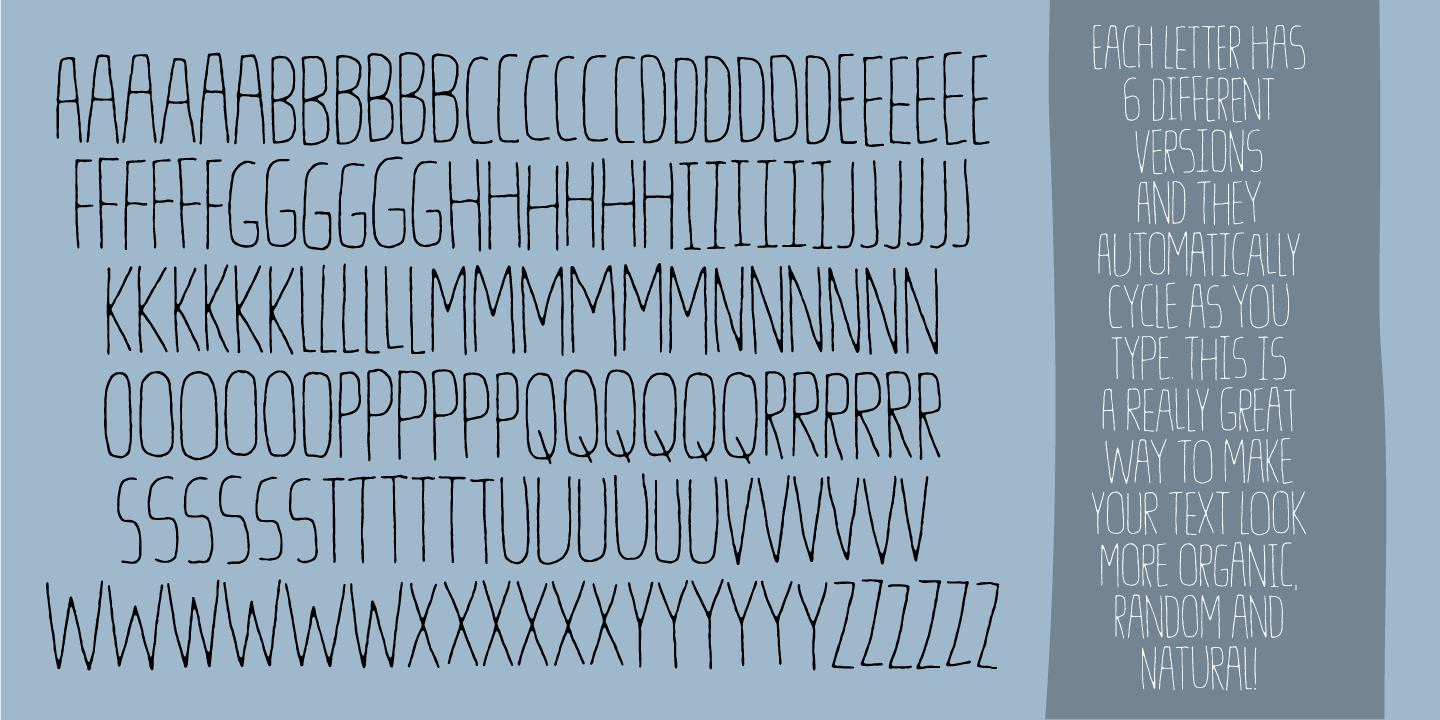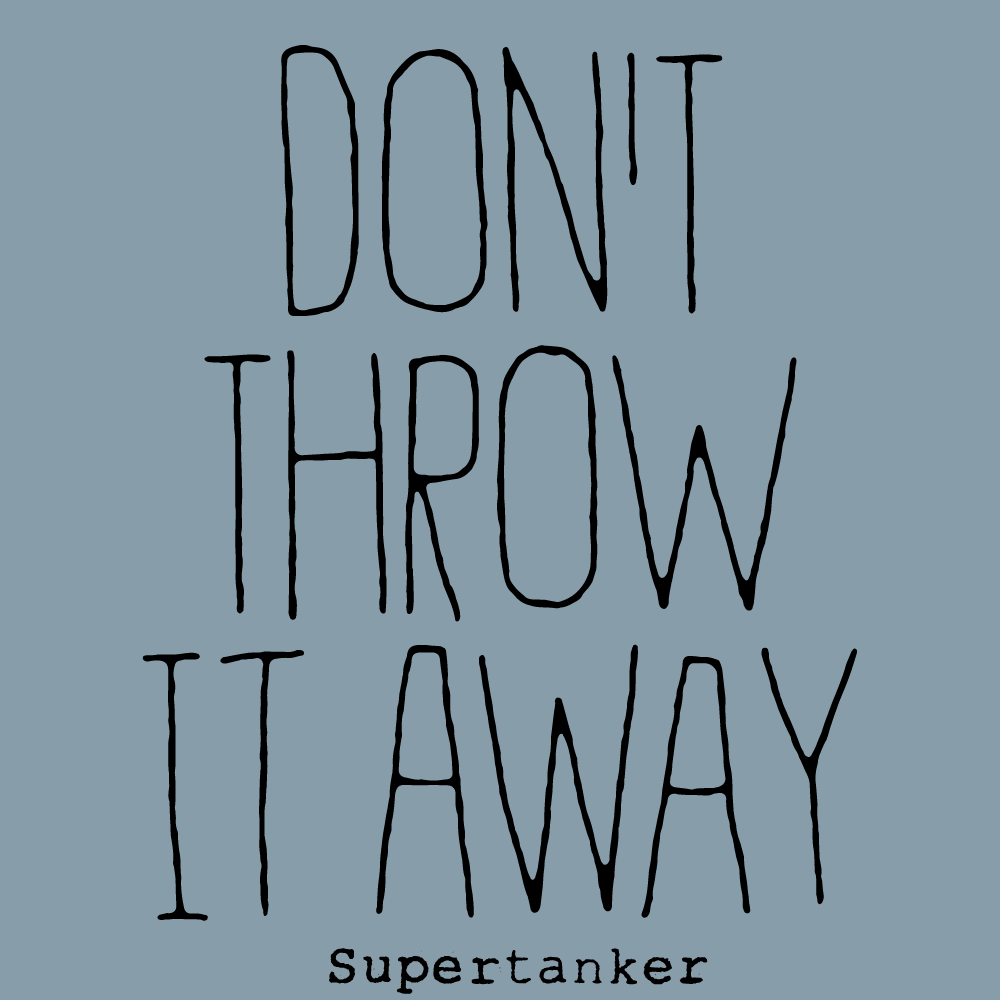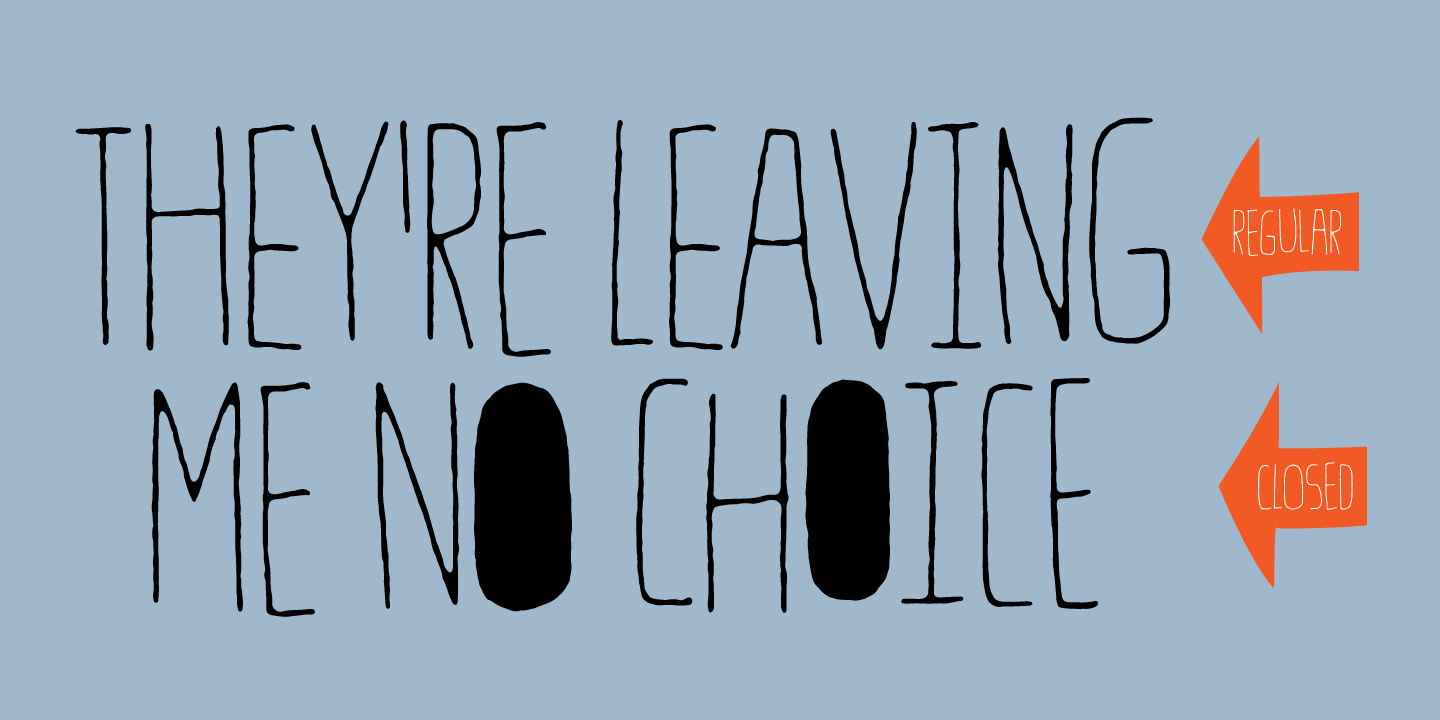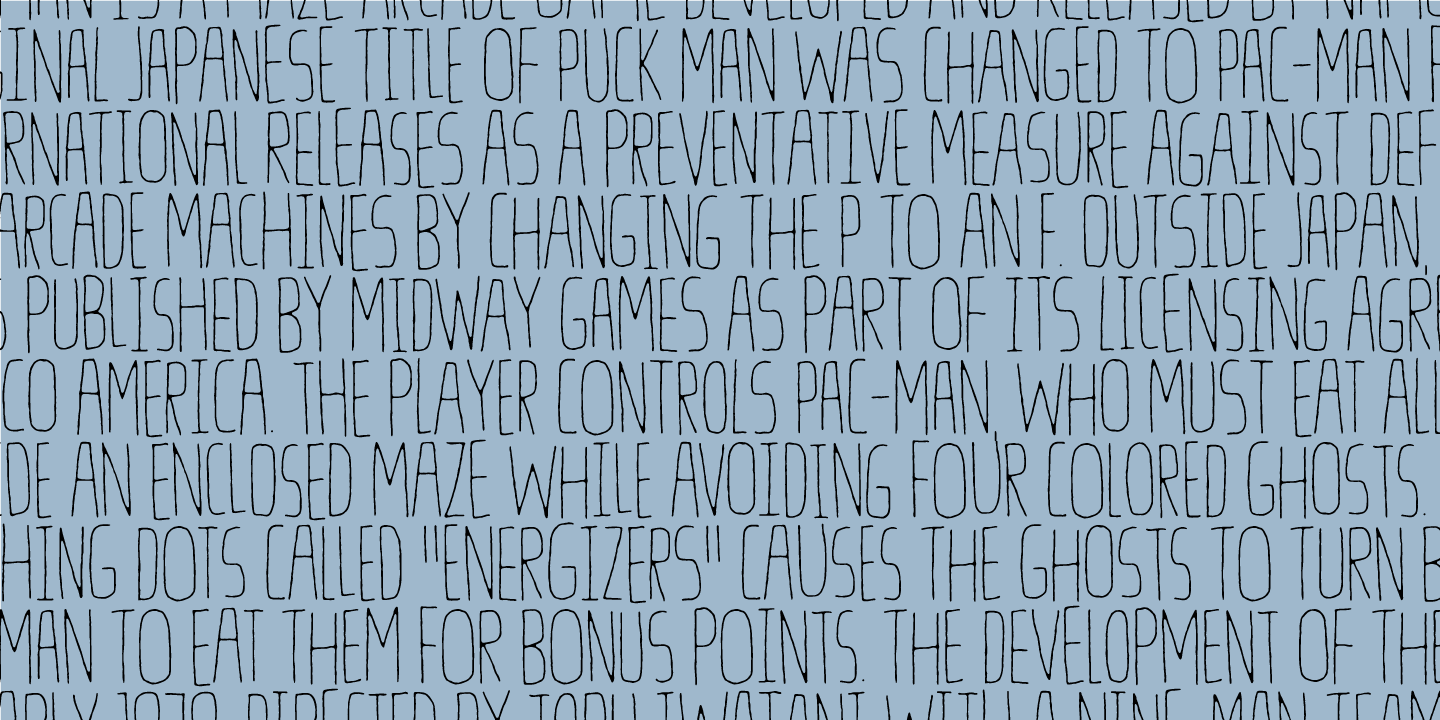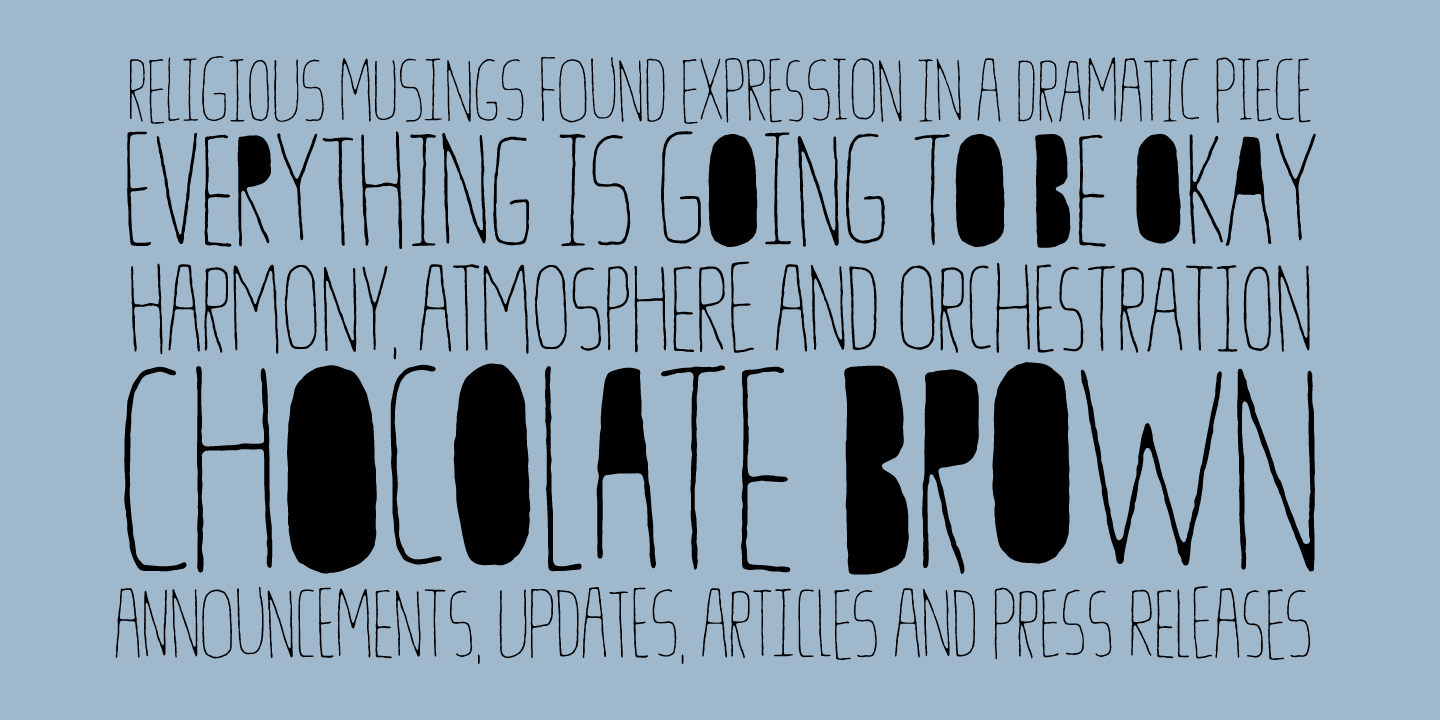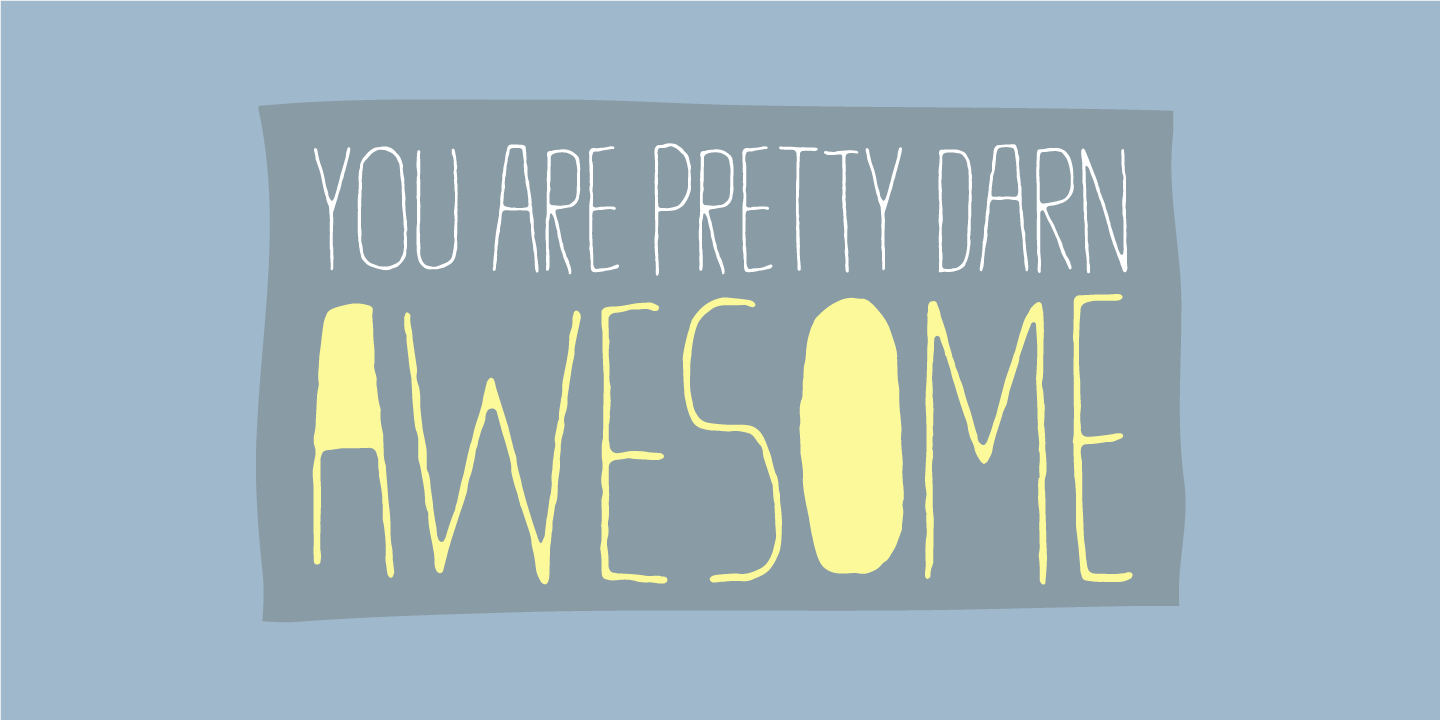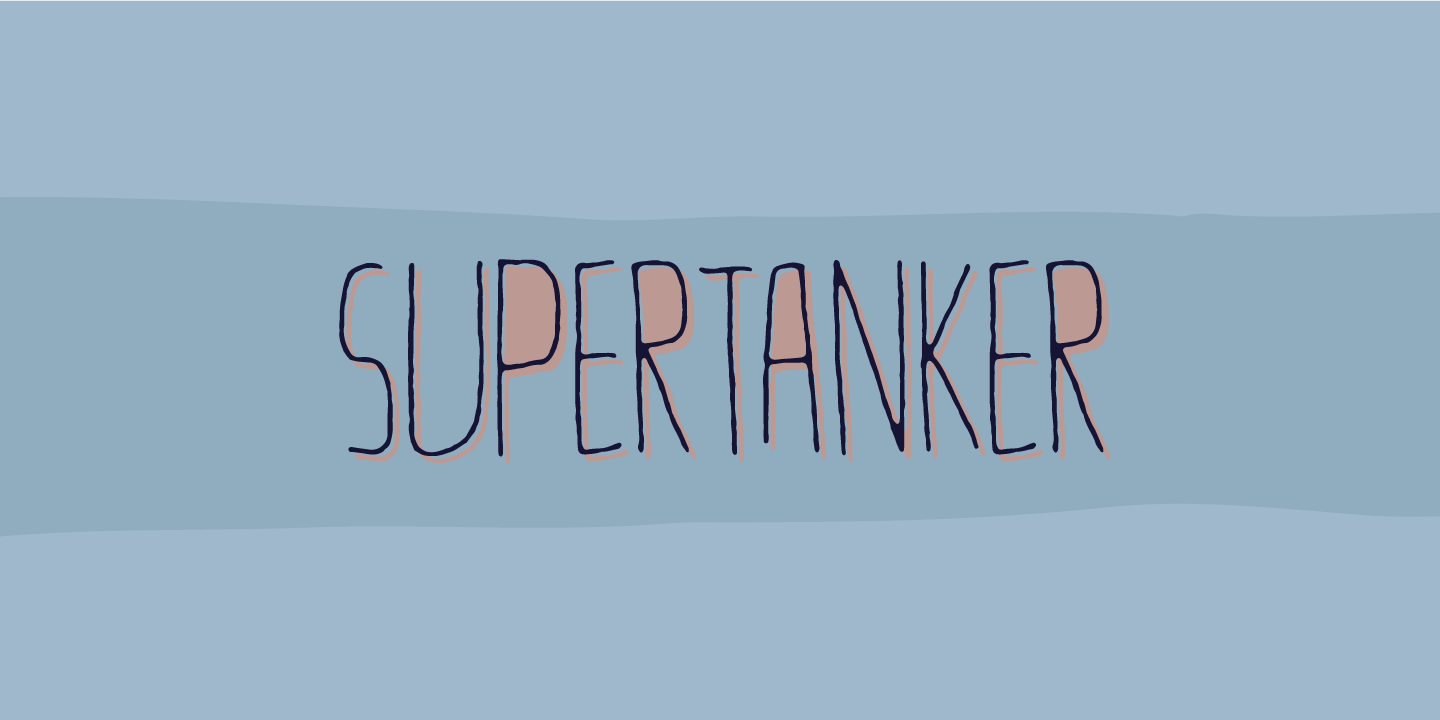
Supertanker
Here’s my tall and thin sans handmade font! It’s lively, rough and quite organic looking - and to boost the natural organic look, I have added 6 different versions of each letter!